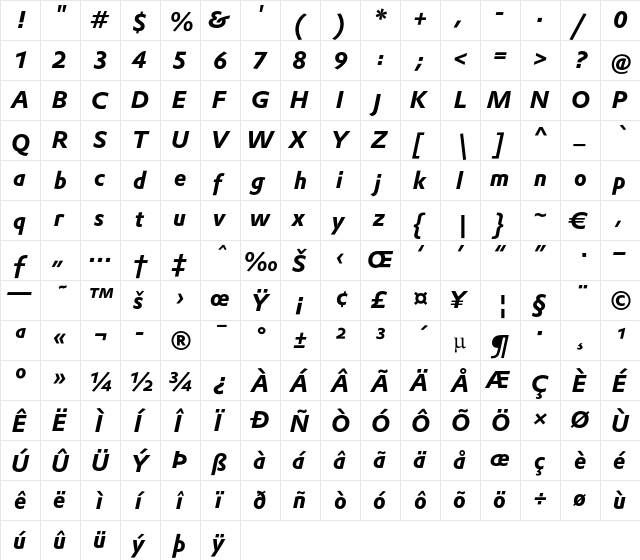
DTLProkyonT Regular
Design Context for DTLProkyonT Typeface
DTLProkyonT takes a measured approach to typography — its balanced proportions and neutral character make it a reliable workhorse for both digital and print work.